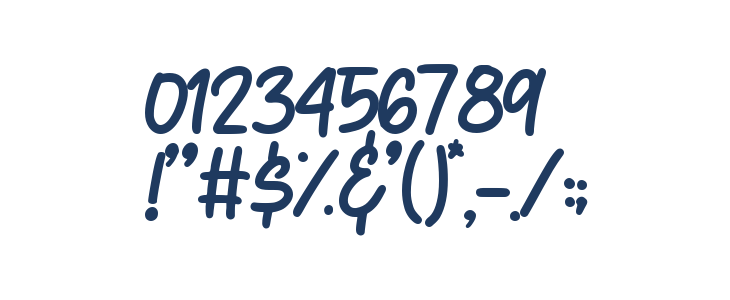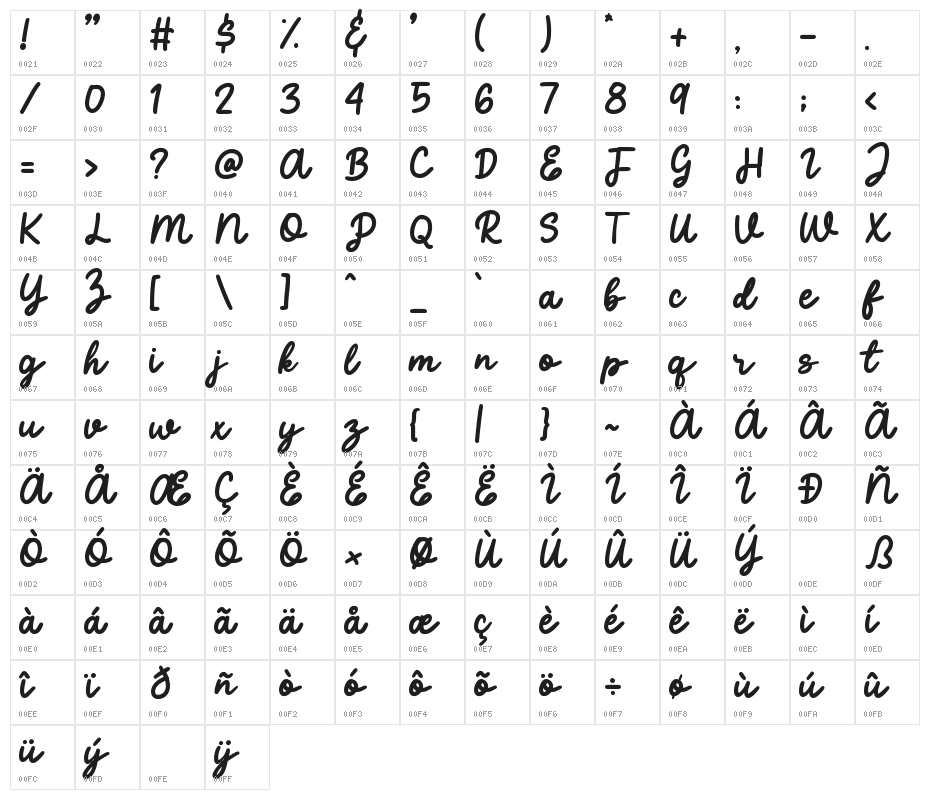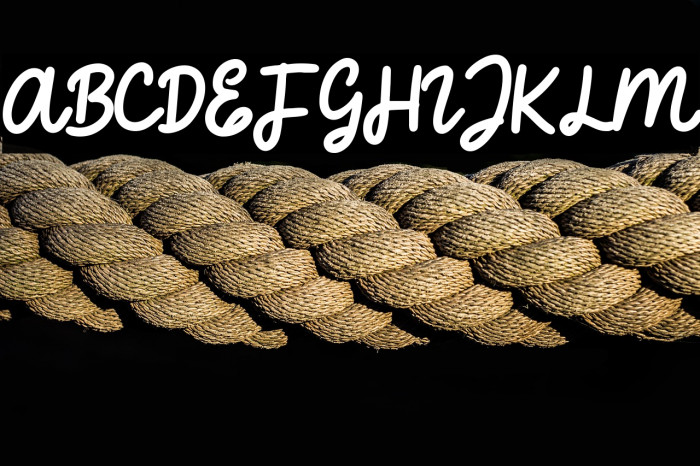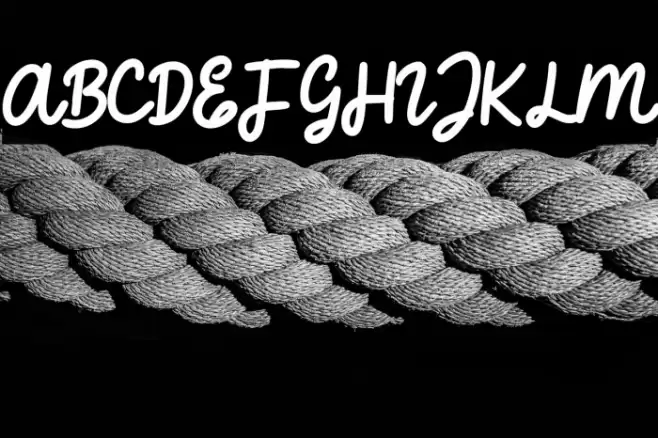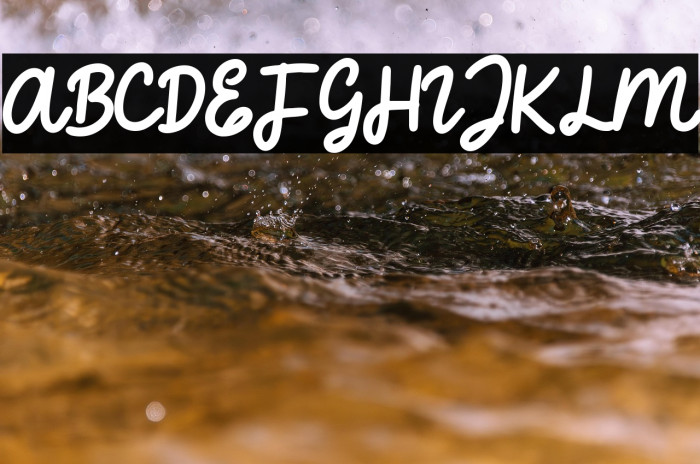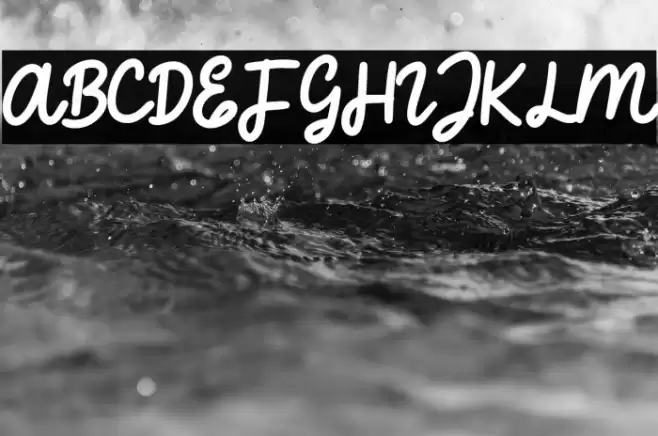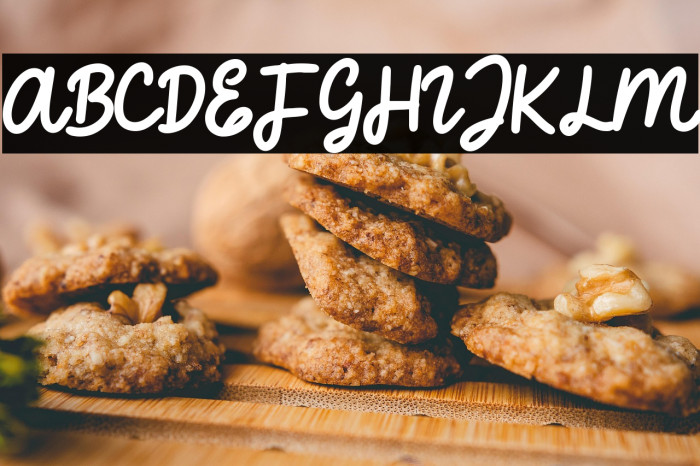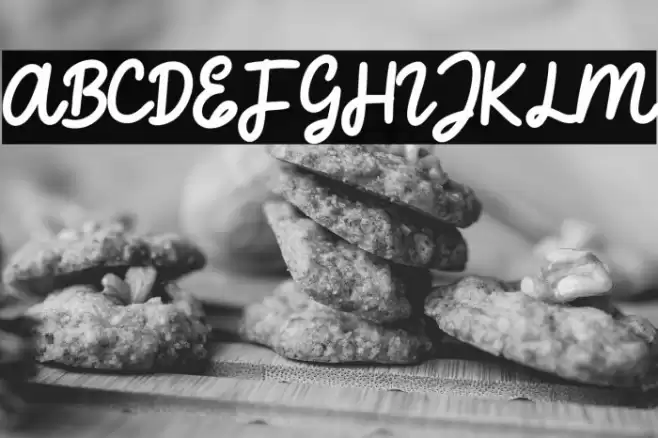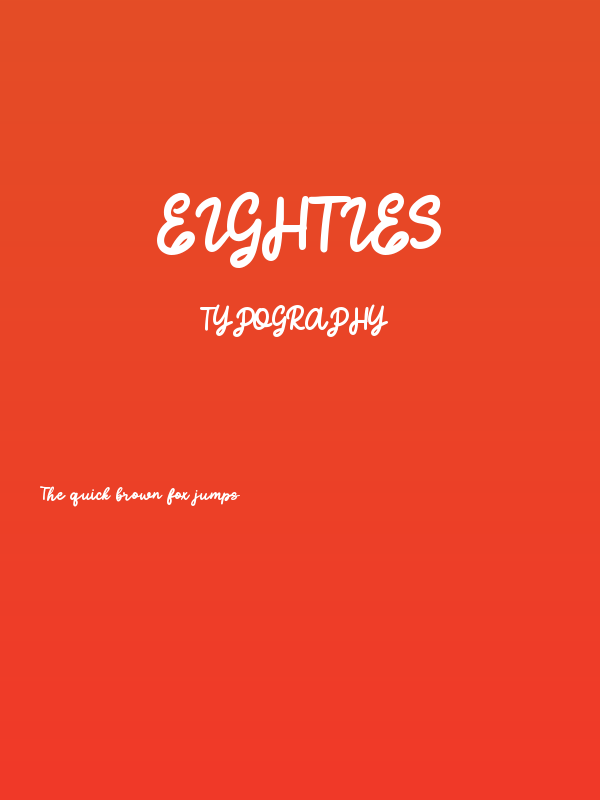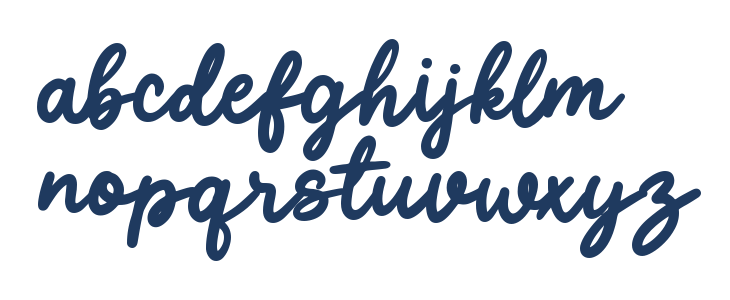
Eighties Font
Eighties Description
This font features a bold, flowing script style that captures the essence of dynamic handwriting. The characters are interconnected, giving it a cohesive and fluid appearance. The uppercase letters are slightly larger and more pronounced, while the lowercase letters maintain a consistent flow. Numbers and special characters are designed to match the overall style, ensuring uniformity across all elements. The strokes are thick and rounded, providing a sense of warmth and approachability. This font is ideal for projects that require a personal touch, such as invitations, greeting cards, or branding materials.
| Proposed Projects | Ideal for invitations, greeting cards, branding materials, and any project requiring a personal touch. |